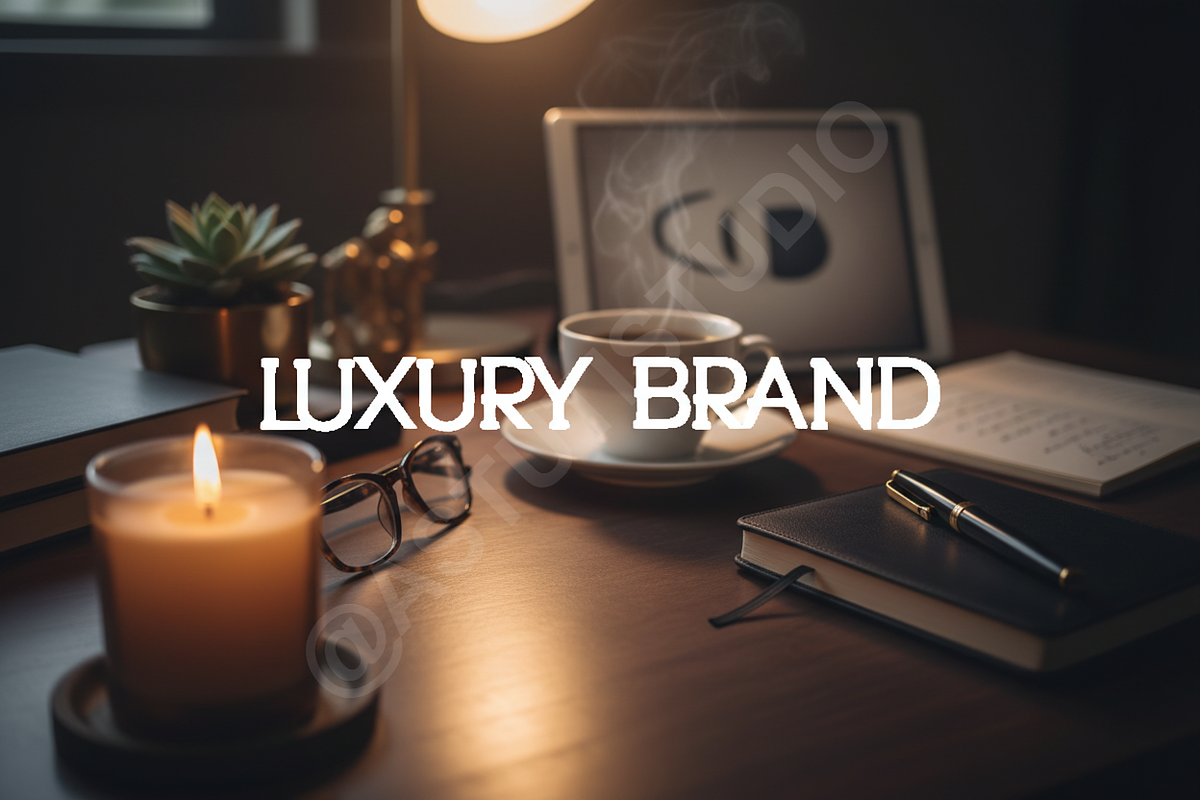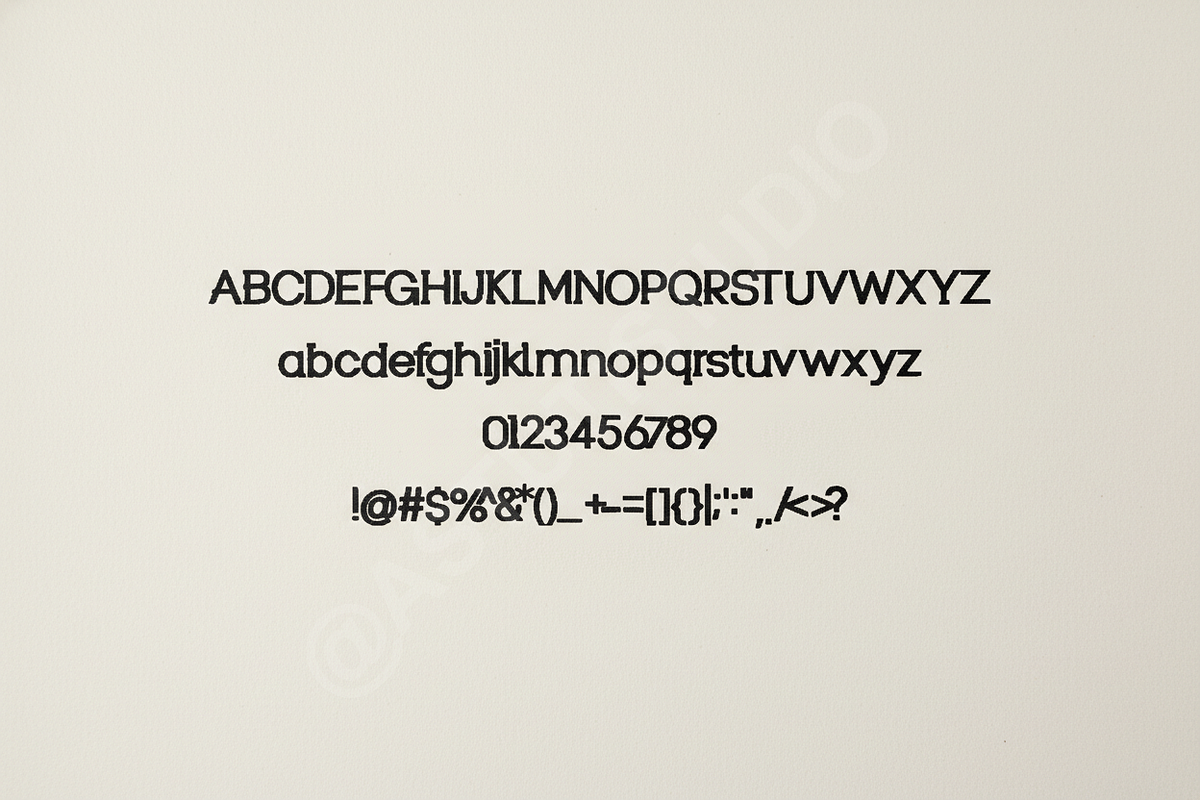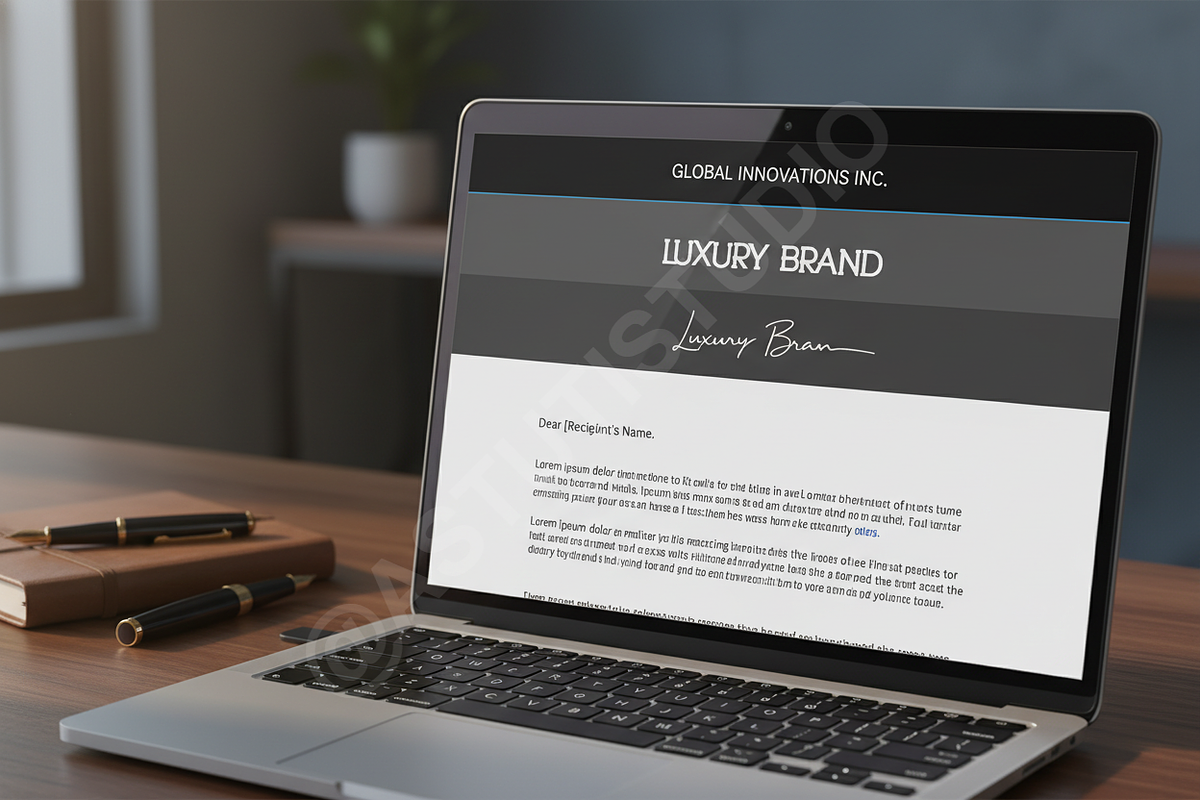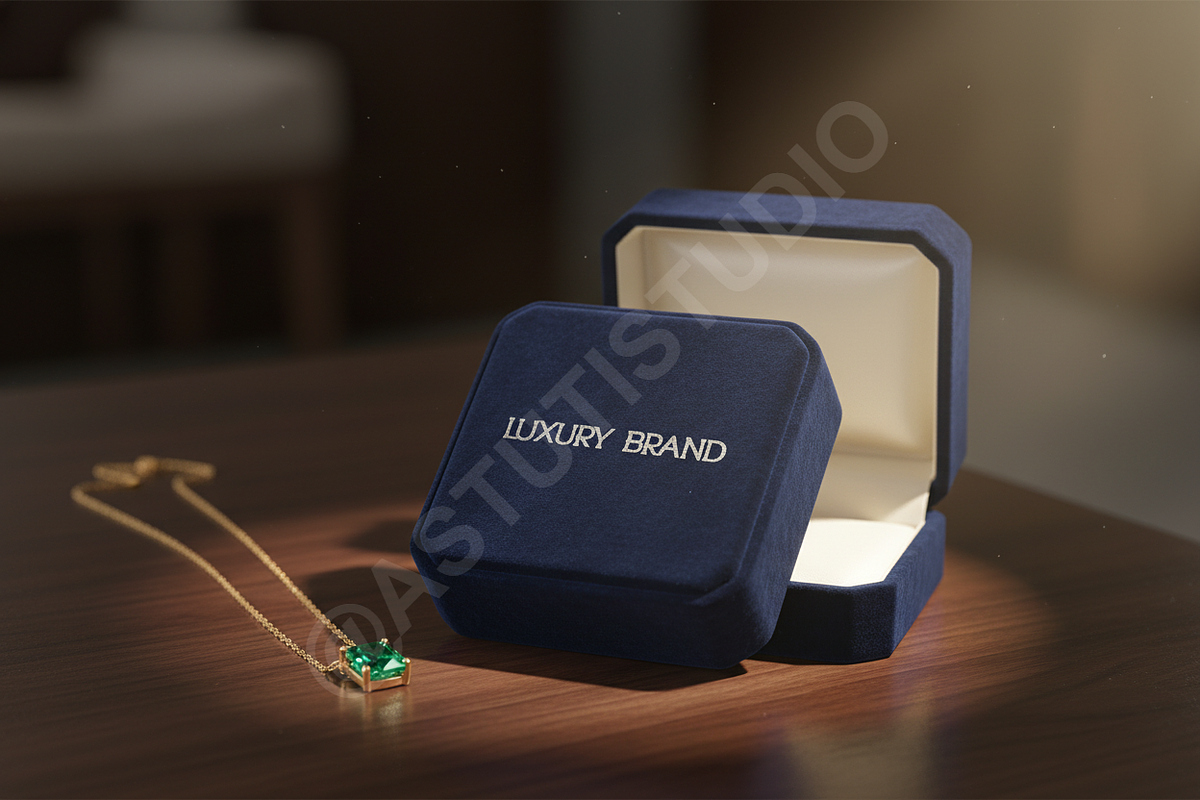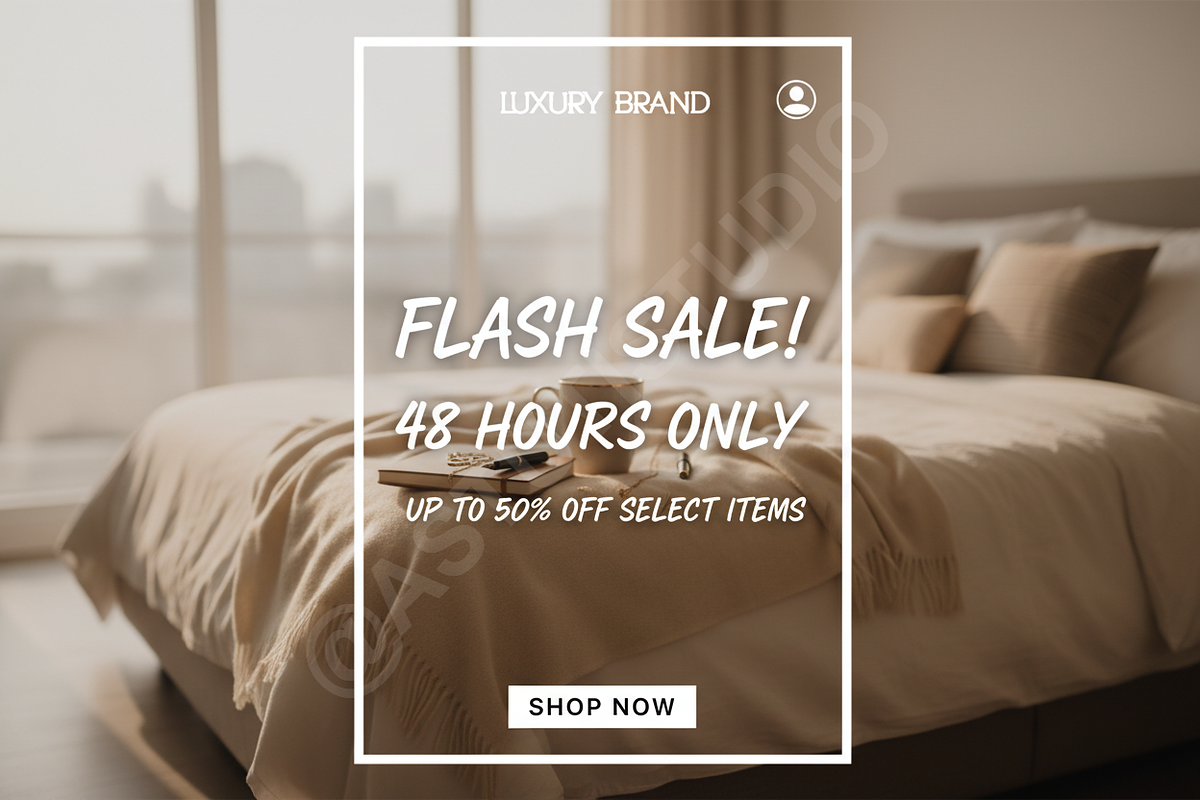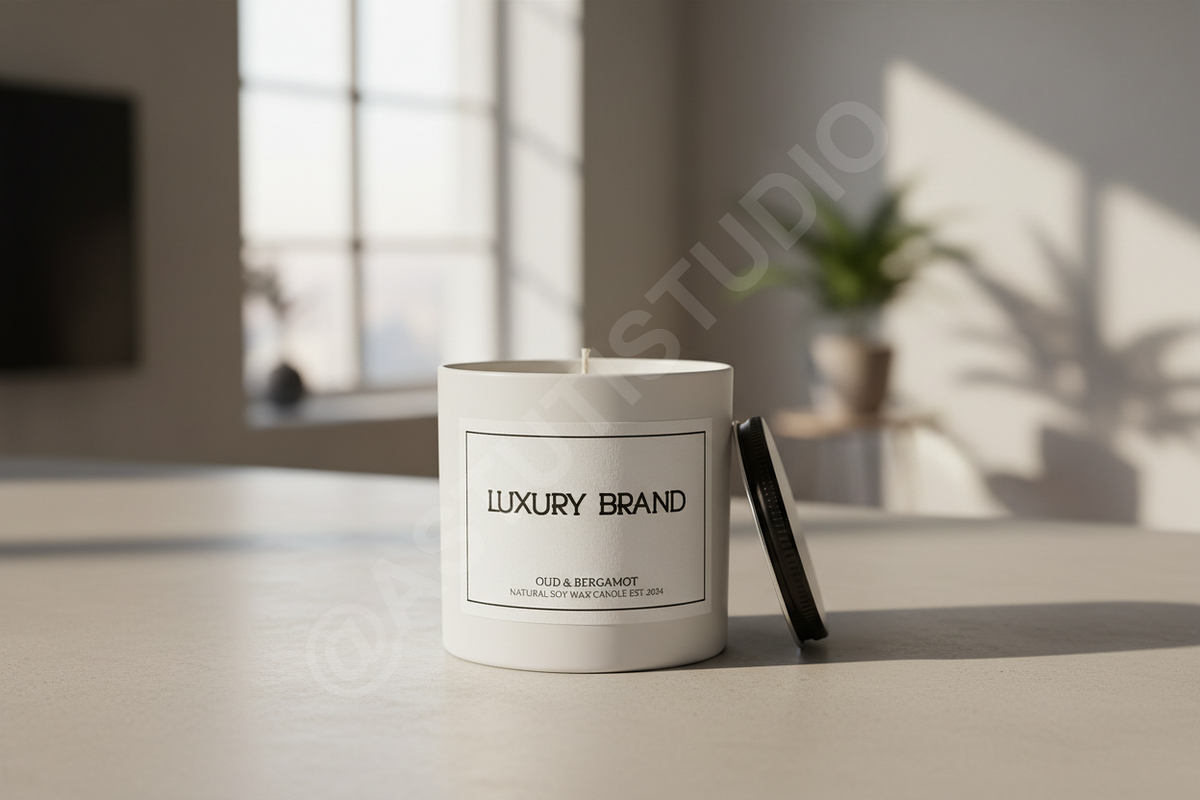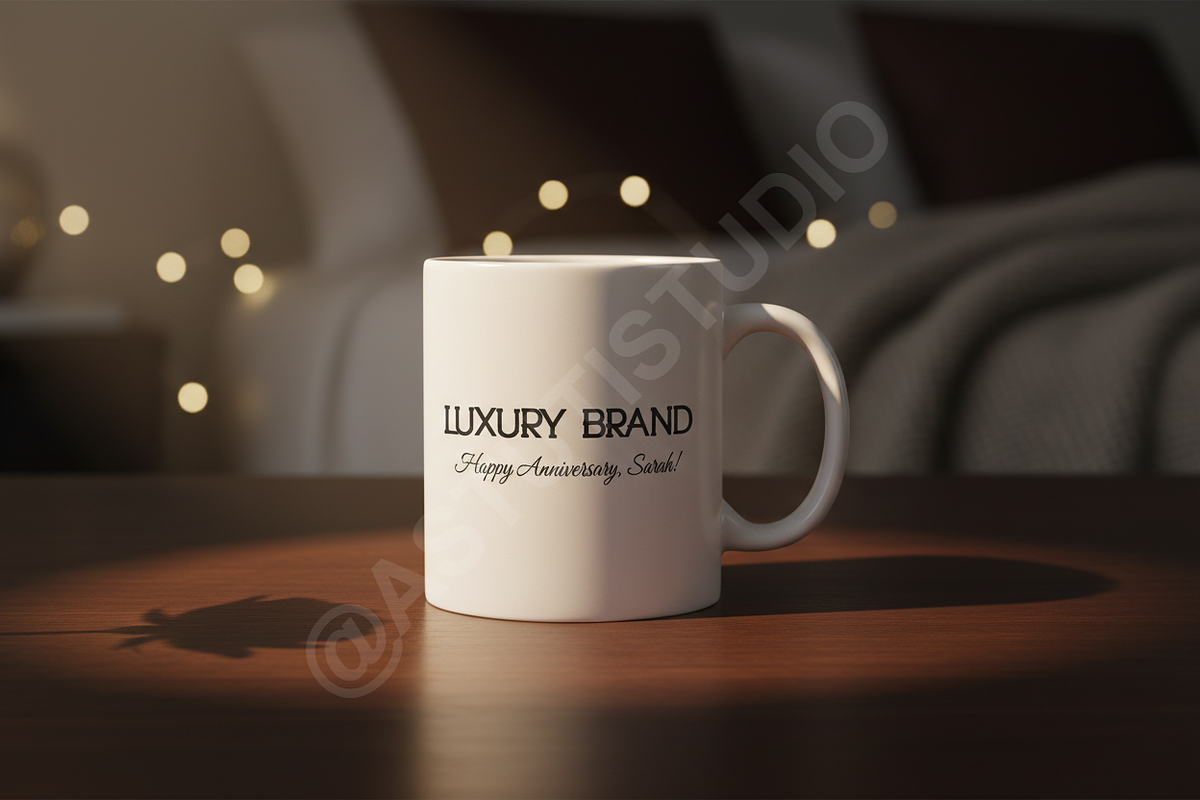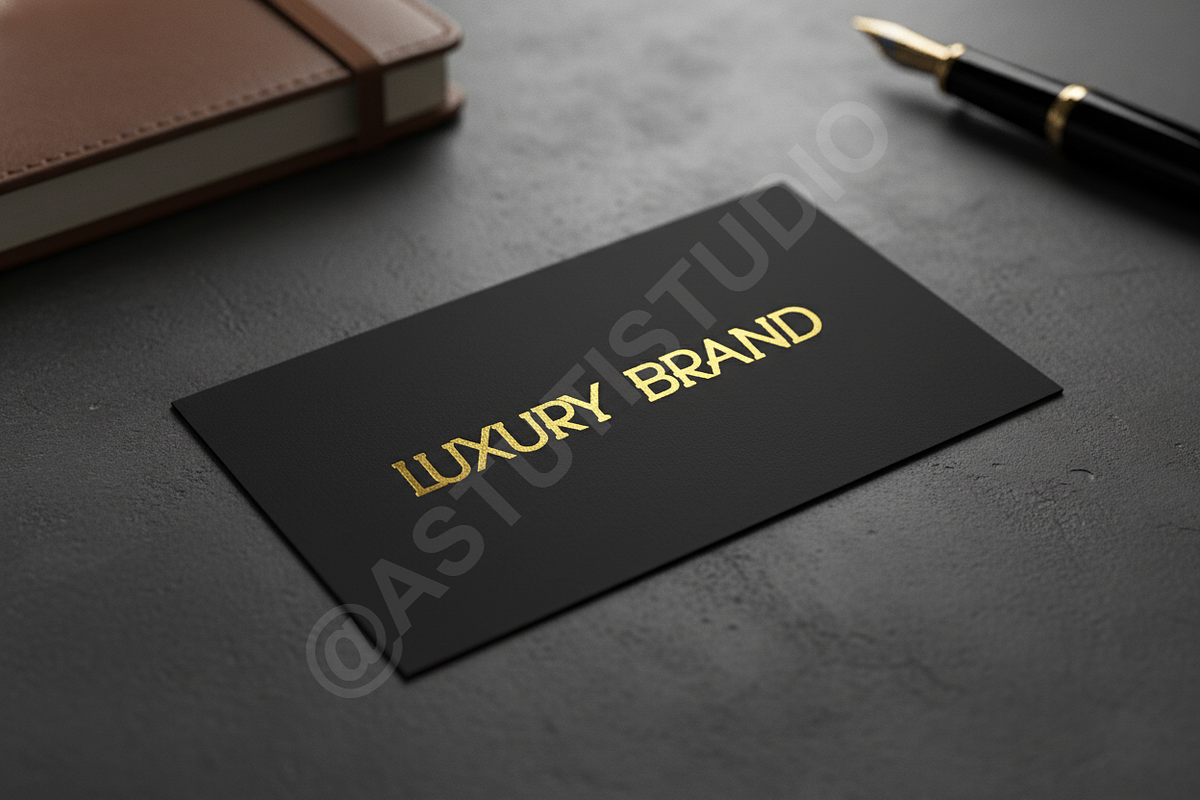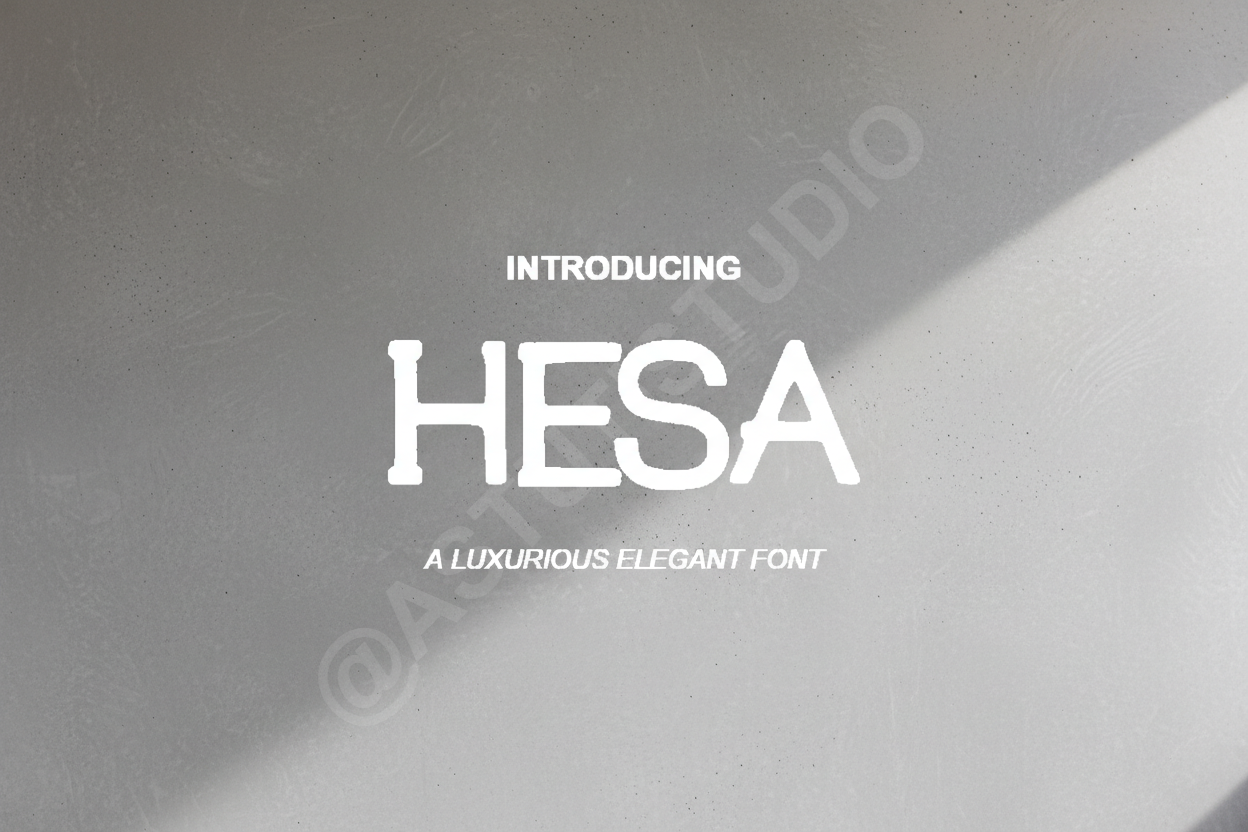
Hesa | Elegant Modern Serif Typeface
Introducing Hesa – A sophisticated serif typeface designed for high-end aesthetics and timeless appeal. Hesa balances classic proportions with contemporary details, making it the ideal choice for designers seeking an elevated look. Perfect for luxury branding, editorial layouts, high-fashion advertisements, and professional social media content.
- Elegant high-contrast letterforms
- Extensive ligature collection for custom layouts
- Comprehensive multilingual support
- Clean and legible at various sizes
- Refined alternates for unique character